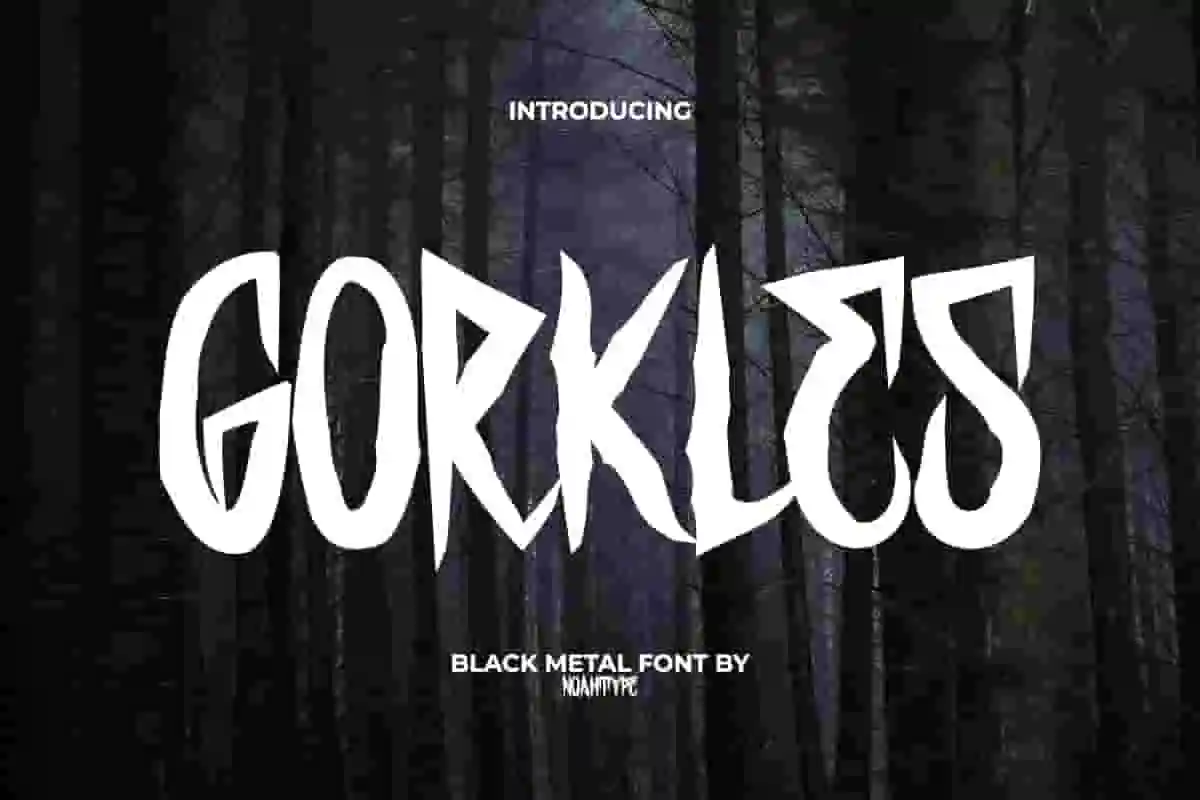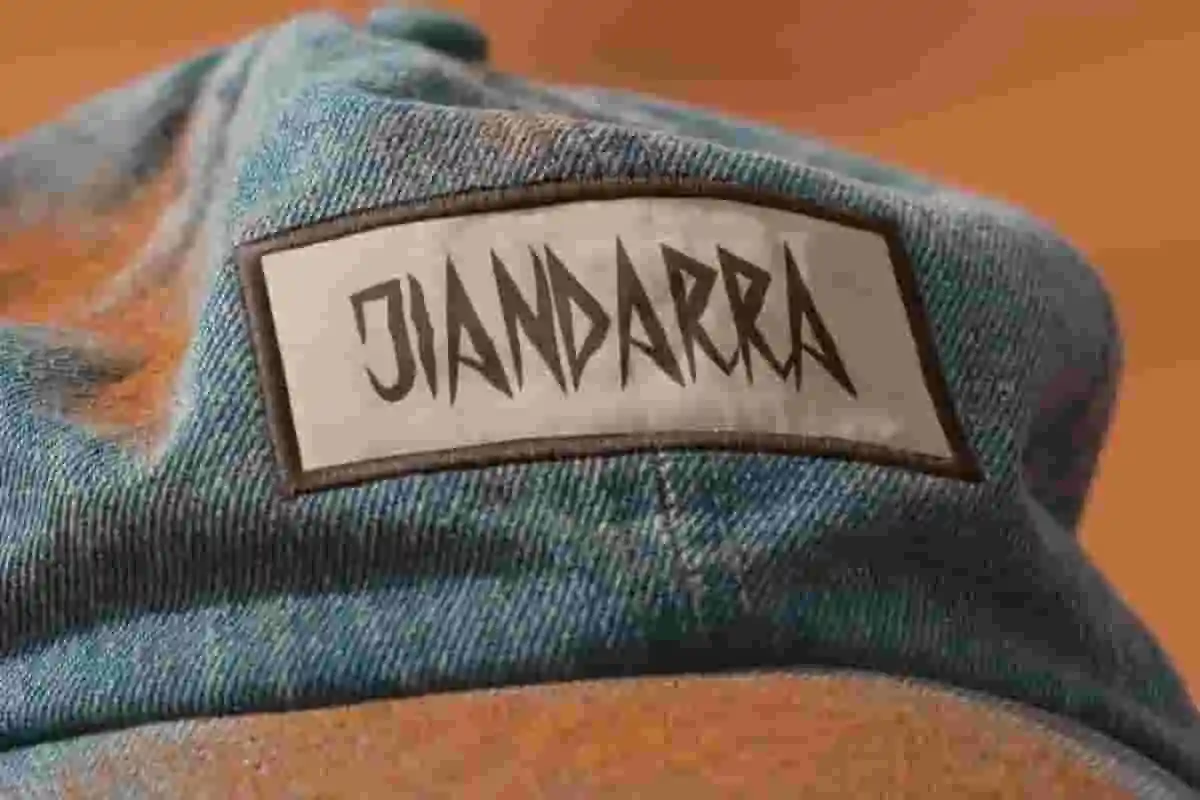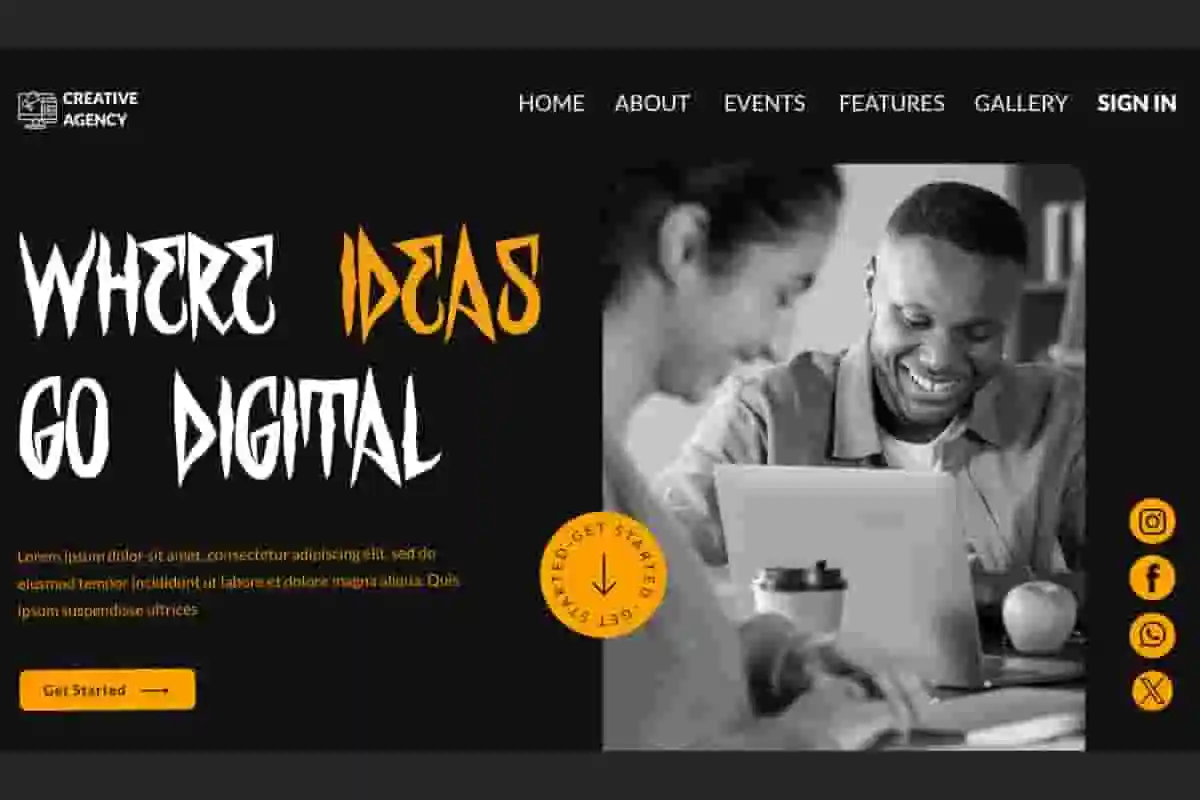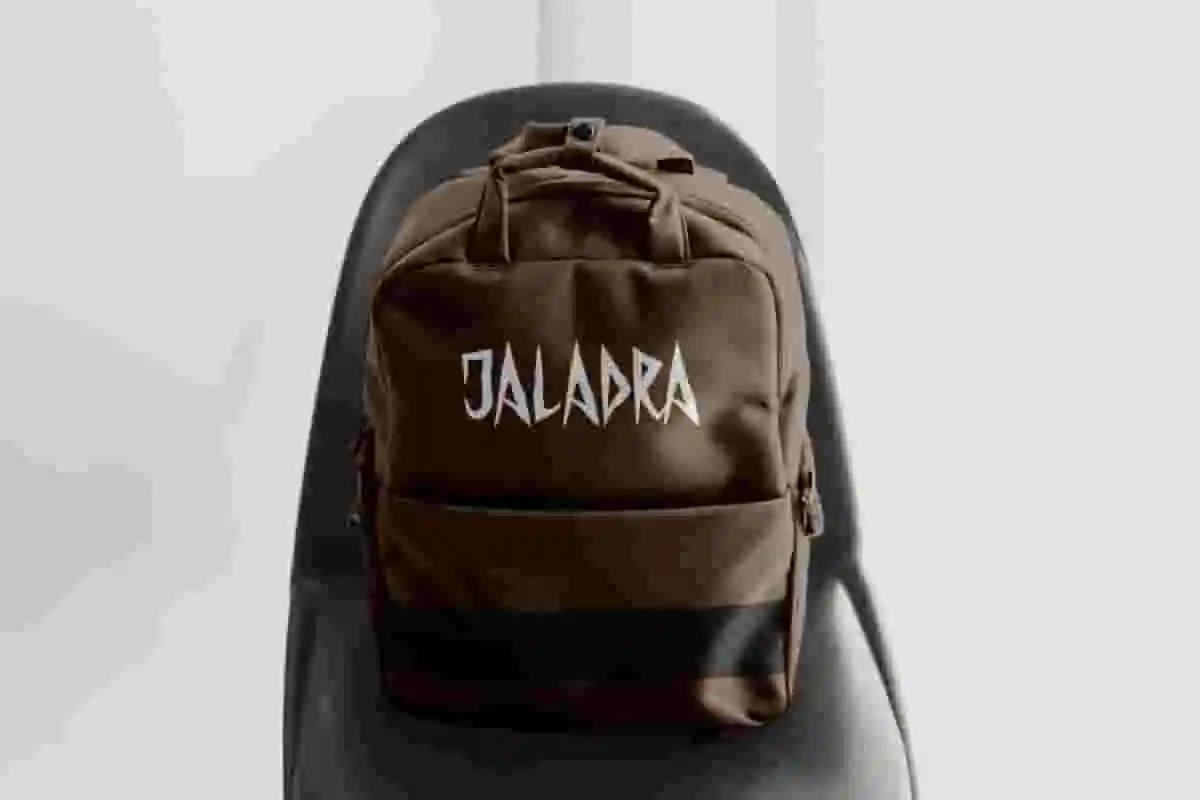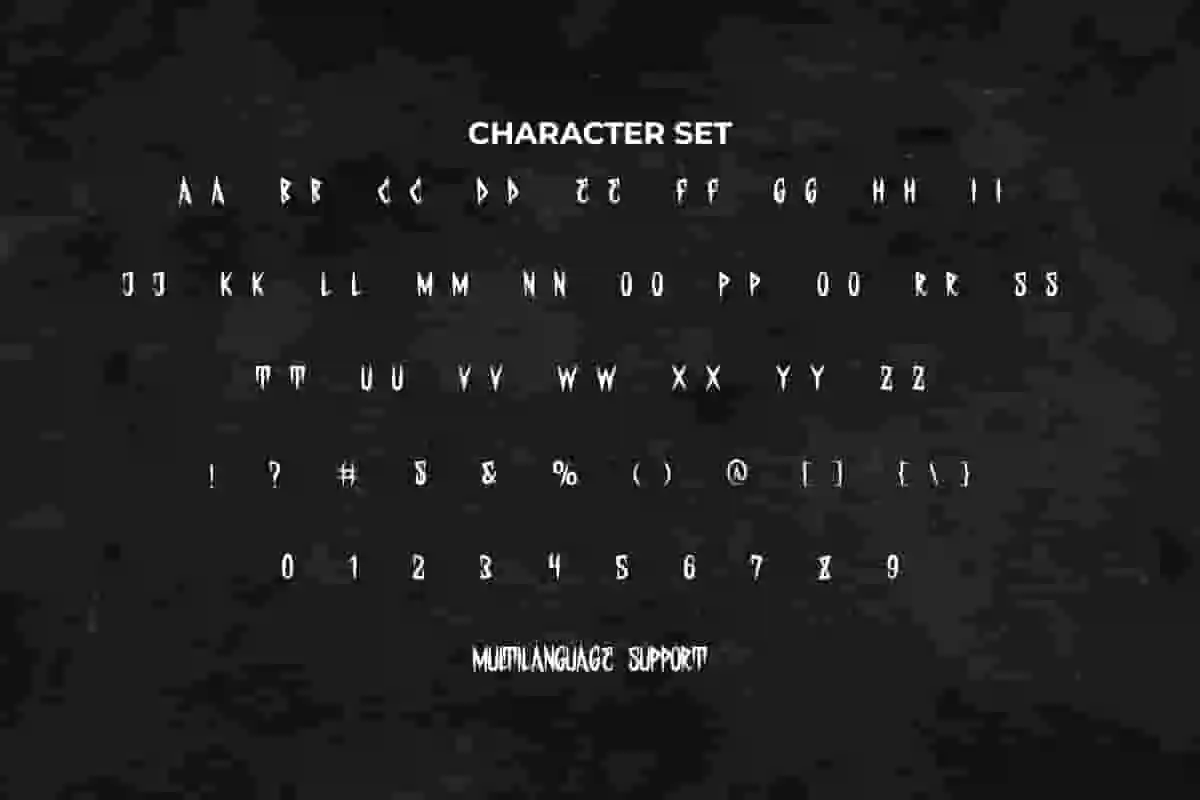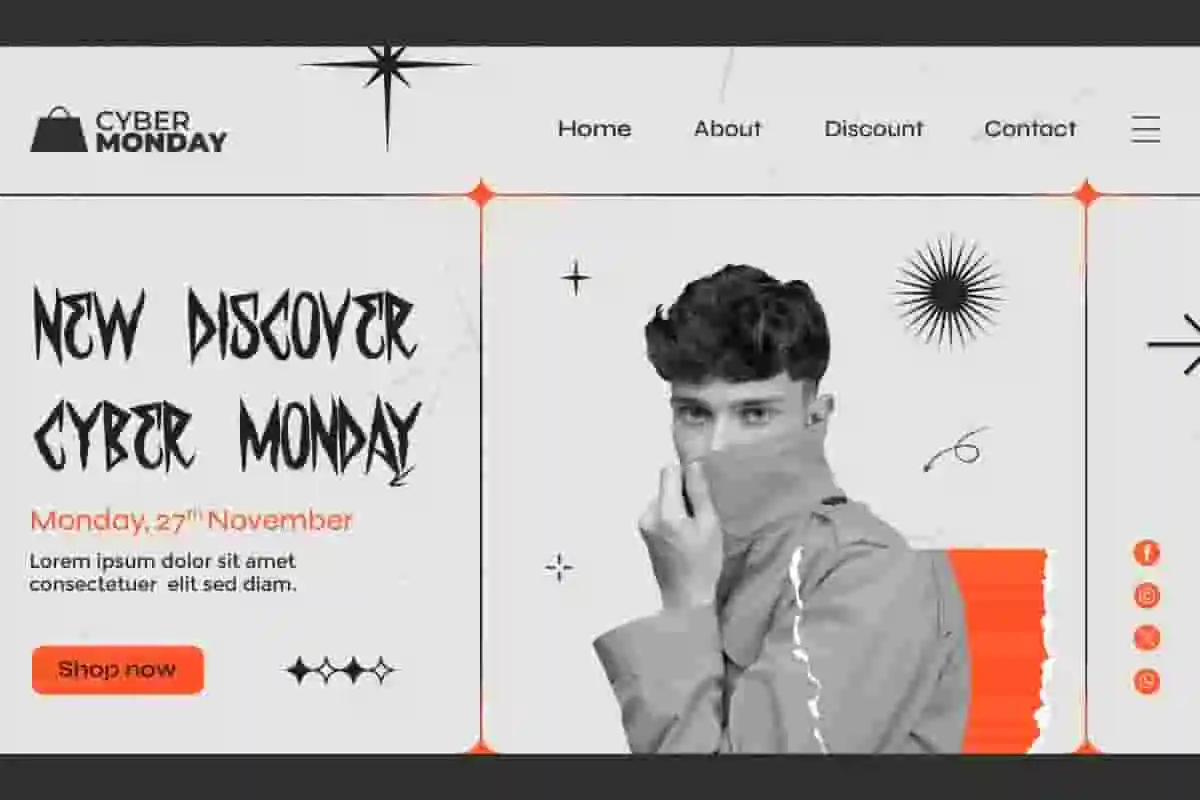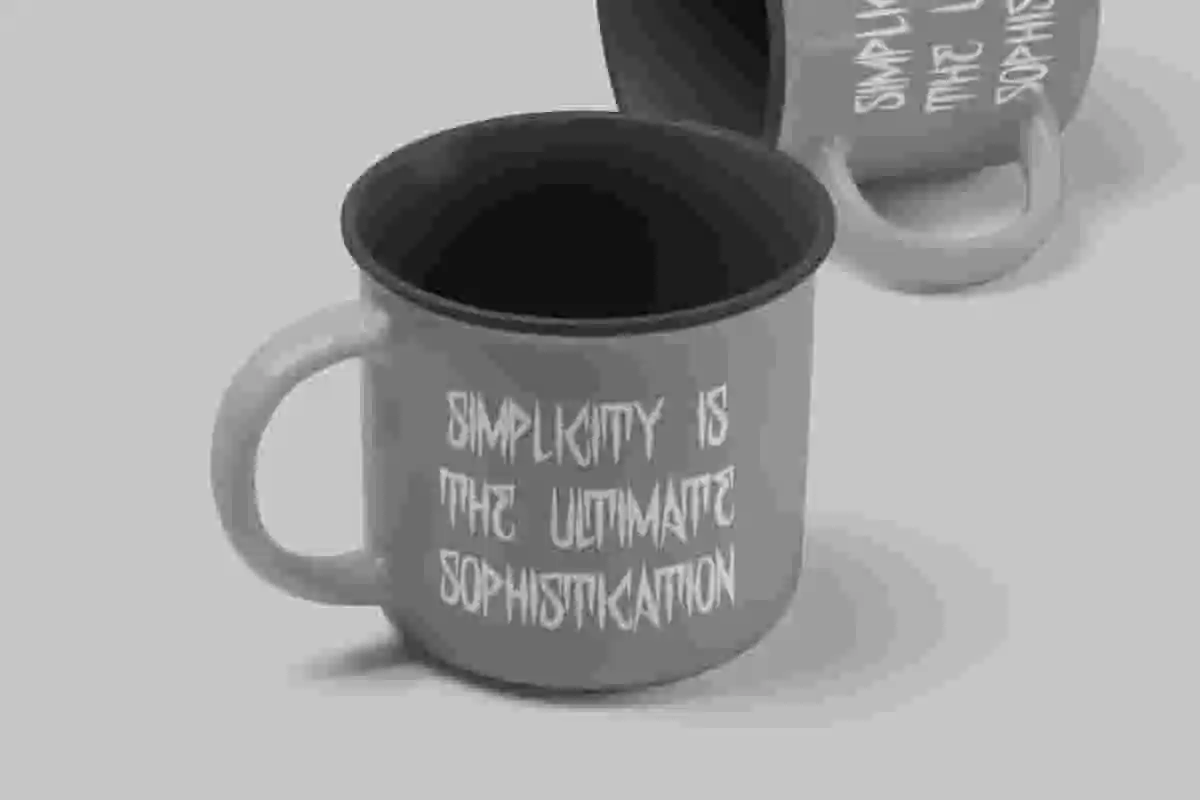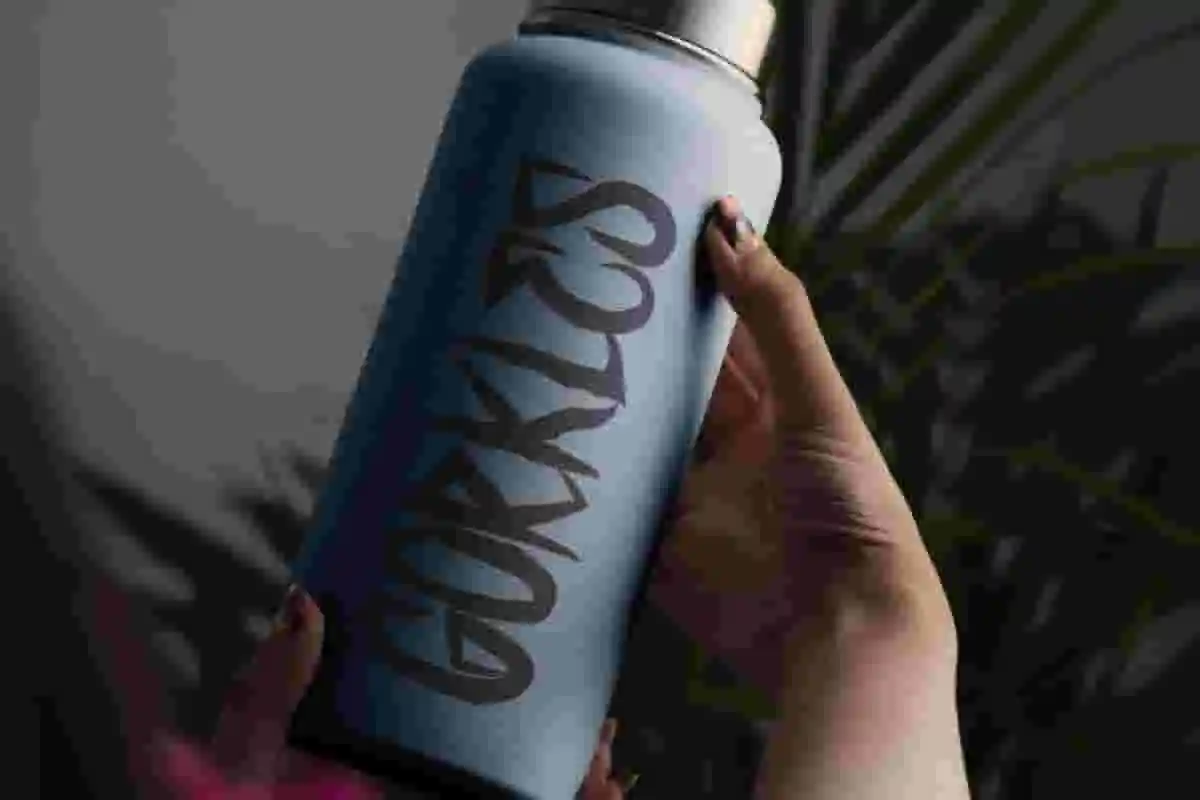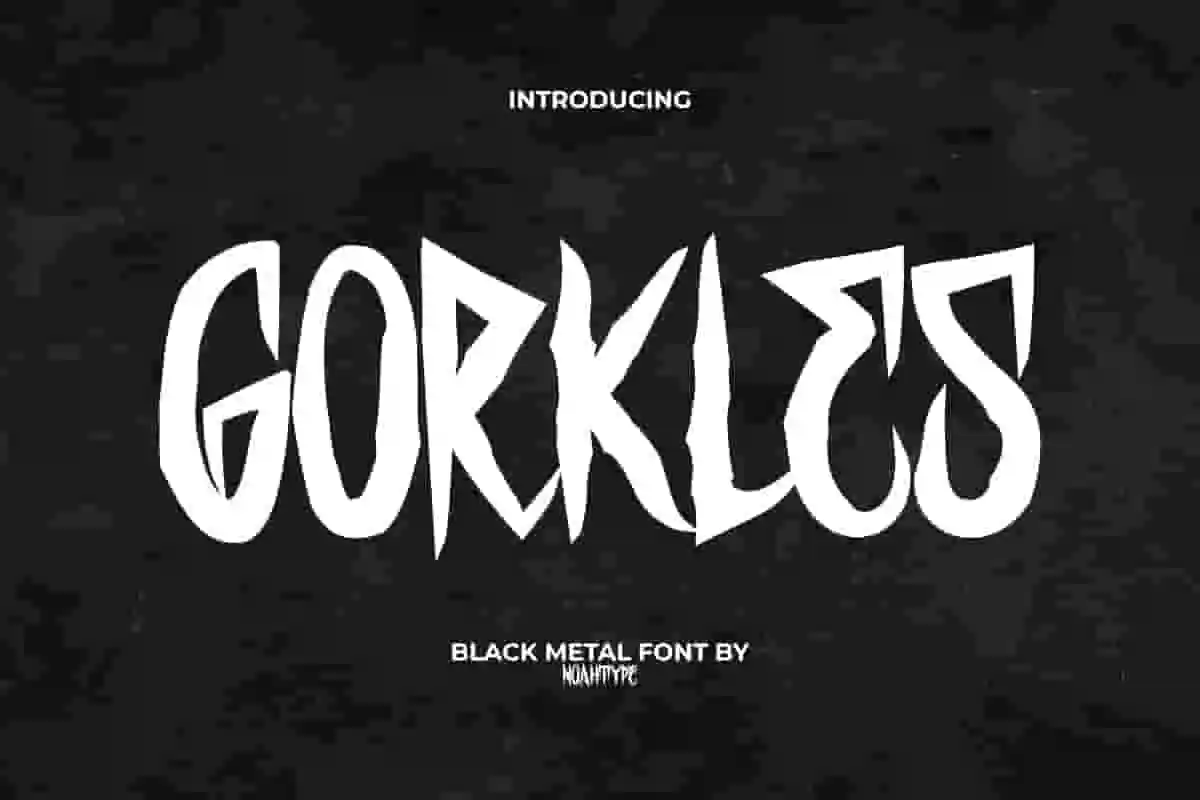
Gorkles Font is a playful horror Black Metal font by NoahType. This font has a special look of scary character with long sides and corners so that it can dominate the design. It will be awesome for any designs, such as custom design, brand image, poster, label, invitation, cover, marketing material, menu, printing, product packaging, quotes, signage, website, and many more!
Gorkles Font includes full set of ALL CAPS for Uppercase and Lowercase Basic Characters, Numerals, Punctuation, and Symbol. This strong font will make your design cool and also a perfect choice for many industries, such as game, movie, comic, music, accessories, advertising, art, café, event or festival, fashion, printing, publishing, etc.